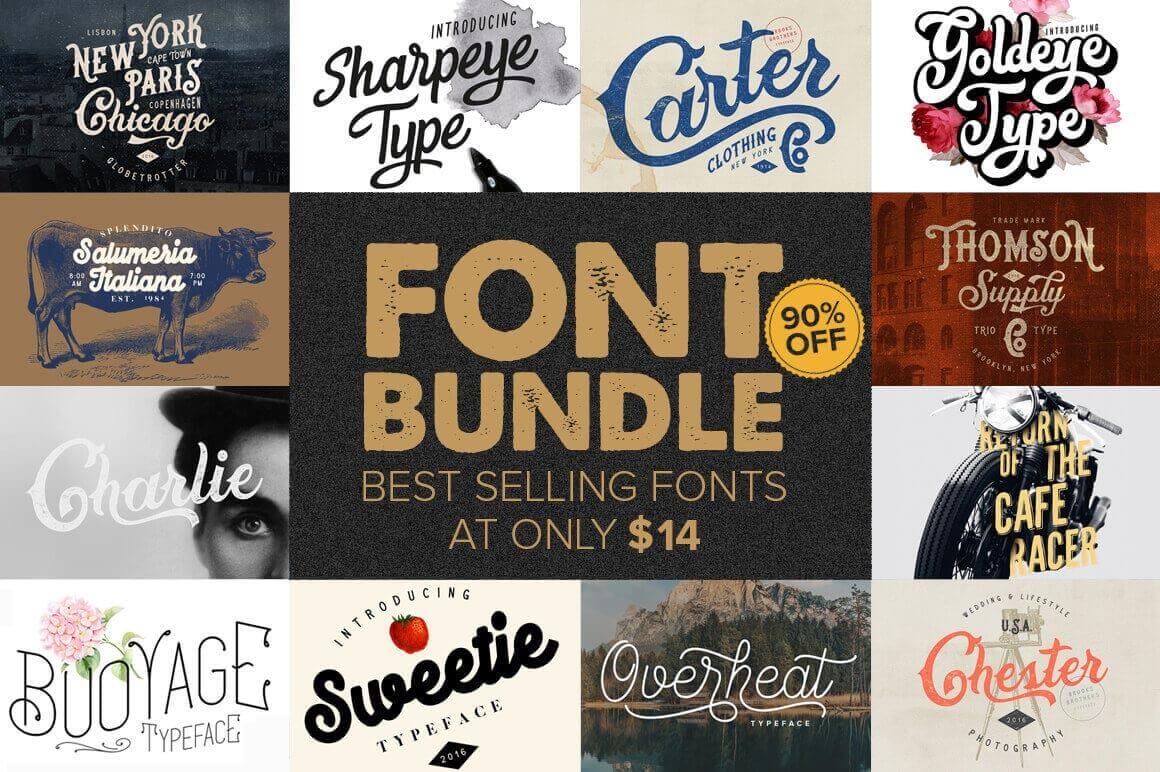
Make room in your typeface toolbox! It’s time to grab this sweet deal full of more than 10 premium best-selling font families. From Charlie to Sweetie to Sharpeye Type, you’ll get a wonderful variety of fun, curvy fonts that will work perfectly with your latest designs. Use them on everything from T-shirts to logos.
- Get creative with OpenType Features – stylistic alternates, ligatures, swashes, punctuation, symbols.
- Huge variety of styles from delicate to funky script.